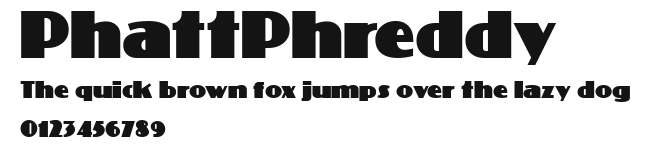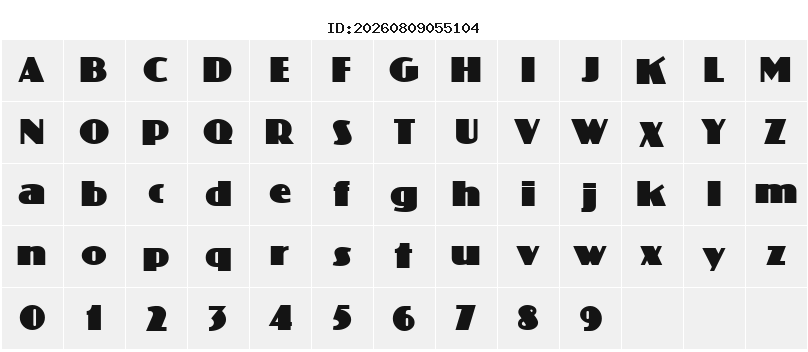
• Font Name: PhattPhreddy
• Designer: Nick Curtis
• Manufacturer: Nick's Fonts
About PhattPhreddy.ttf
PhattPhreddy.ttf is a modern, elegant sans-serif font designed for ultimate readability and visual harmony. Perfect for branding, headlines, web design, and print materials.